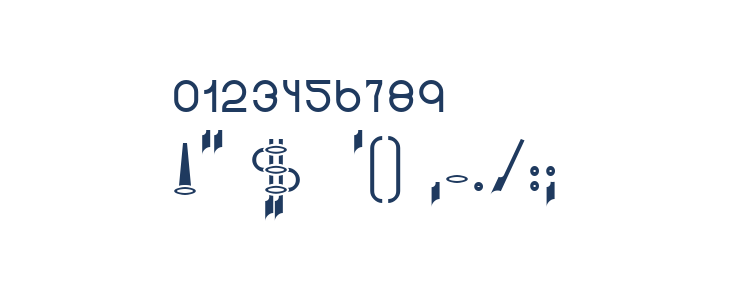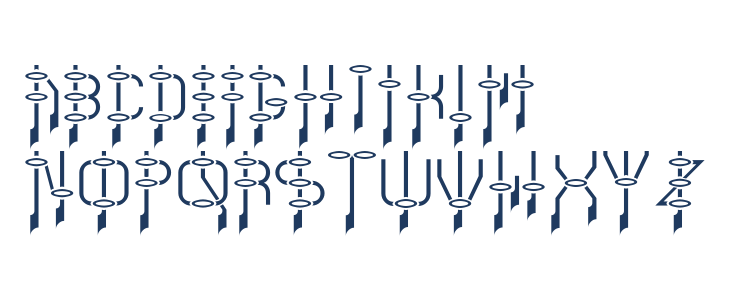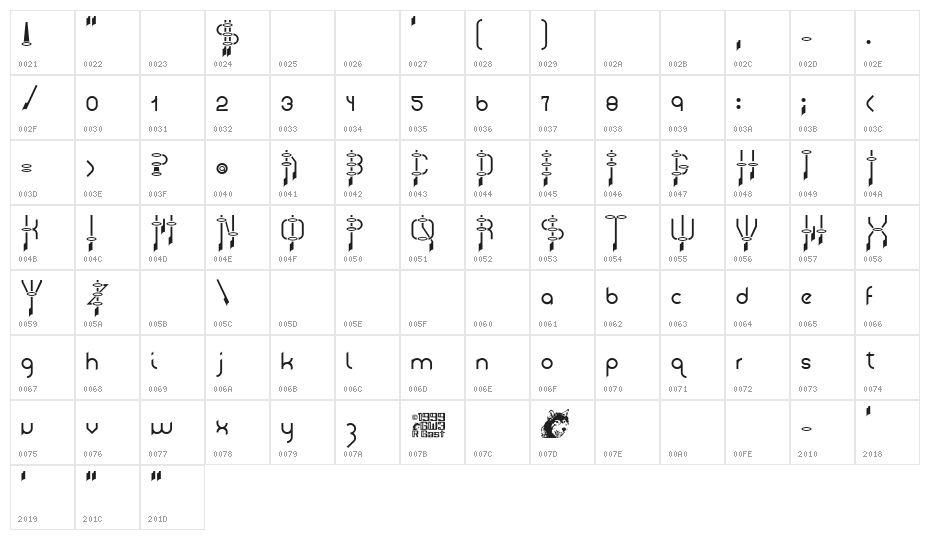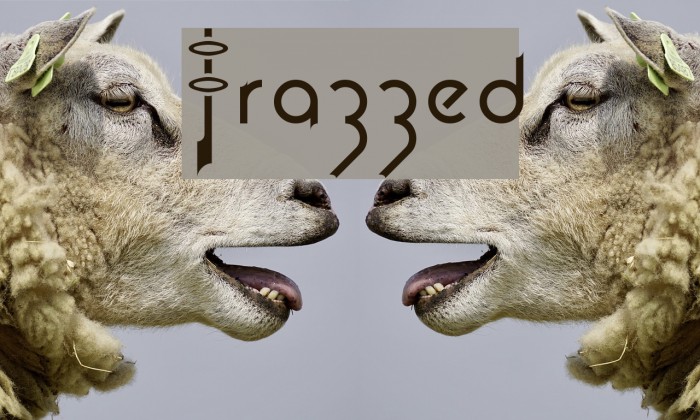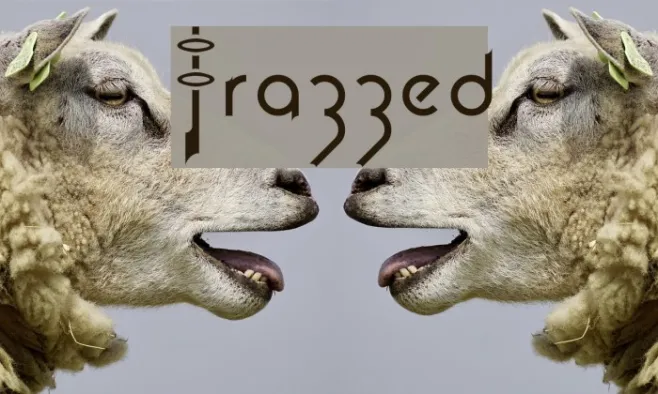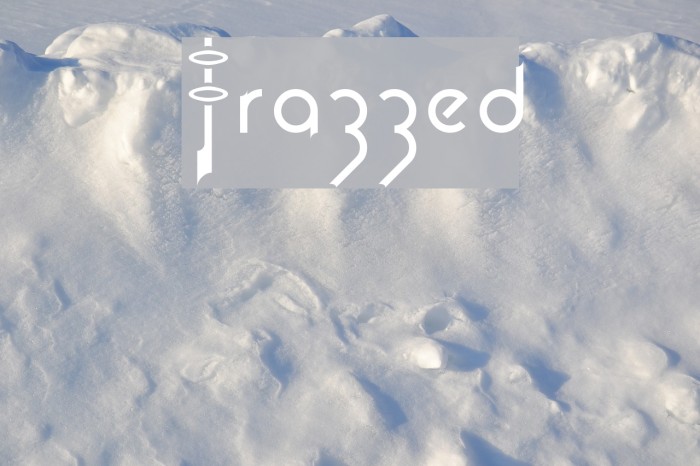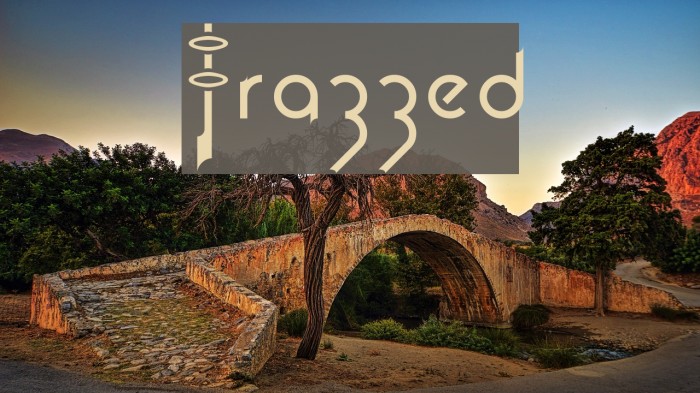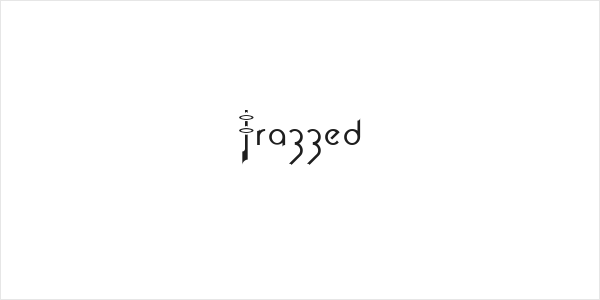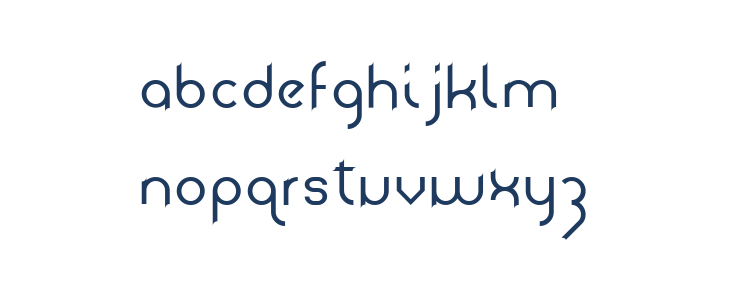
Frazzed Font
Frazzed Description
This font features a unique and playful design with a futuristic twist. The uppercase letters are characterized by bold vertical strokes with circular elements that create a sense of movement and energy. The lowercase letters are more rounded and smooth, providing a nice contrast to the more angular uppercase. The numbers follow a similar style, maintaining consistency throughout the typeface. Special characters are creatively designed, adding to the font's overall quirky and modern aesthetic. This font is perfect for projects that require a standout, eye-catching typeface.
| Proposed Projects | Ideal for sci-fi themed designs, modern posters, innovative branding, and creative digital art. |